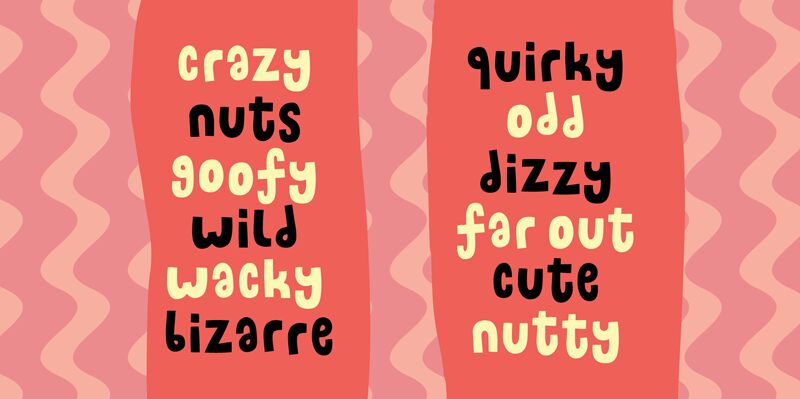
Belly Snack DEMO Regular
Belly Snack font, designed by Pizzadude, is a bold display typeface with a playful cartoon style. Its thick strokes and lively curves bring an energetic and fun vibe to any project. Ideal for eye-catching headlines, children's books, or whimsical branding, its whimsical nature makes it perfect for designs wanting to add personality and flair.